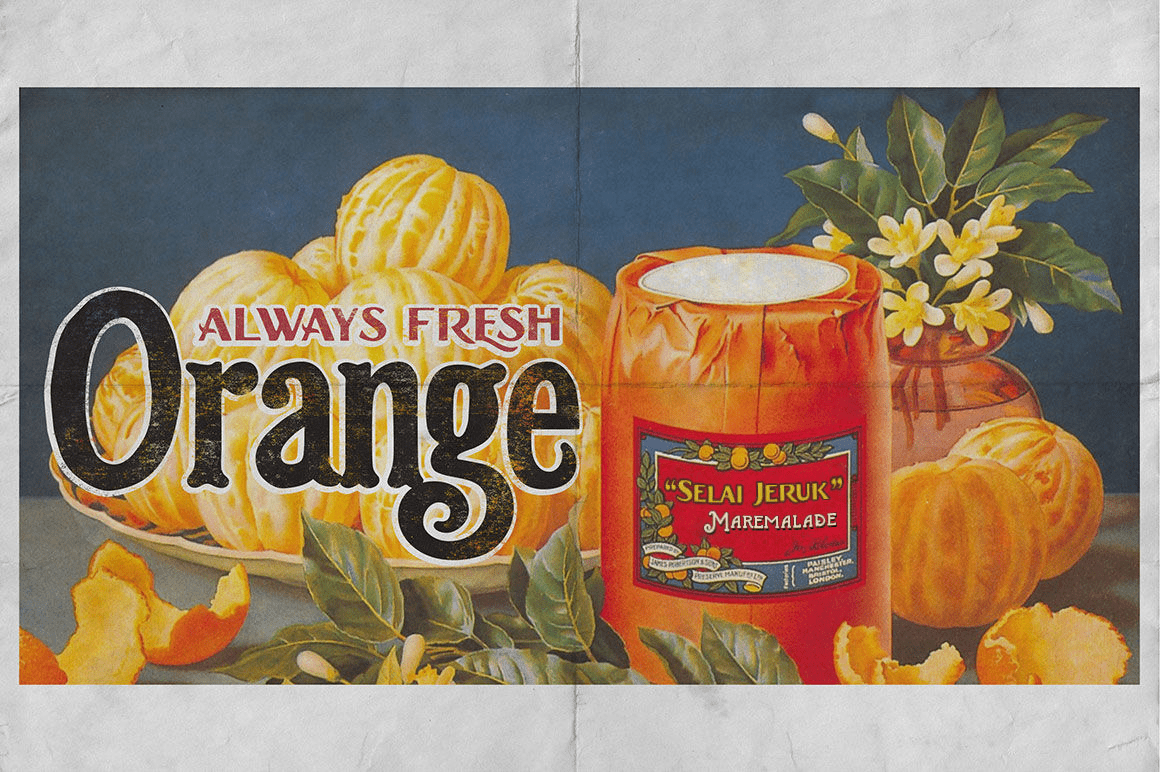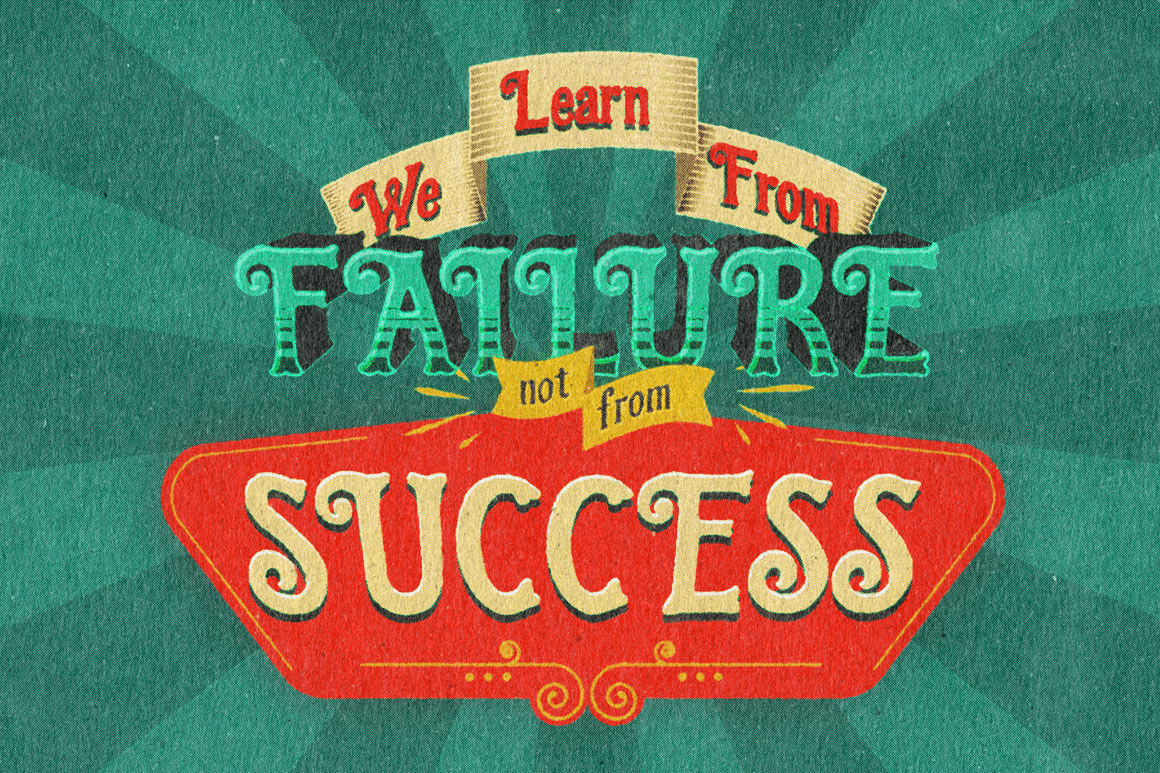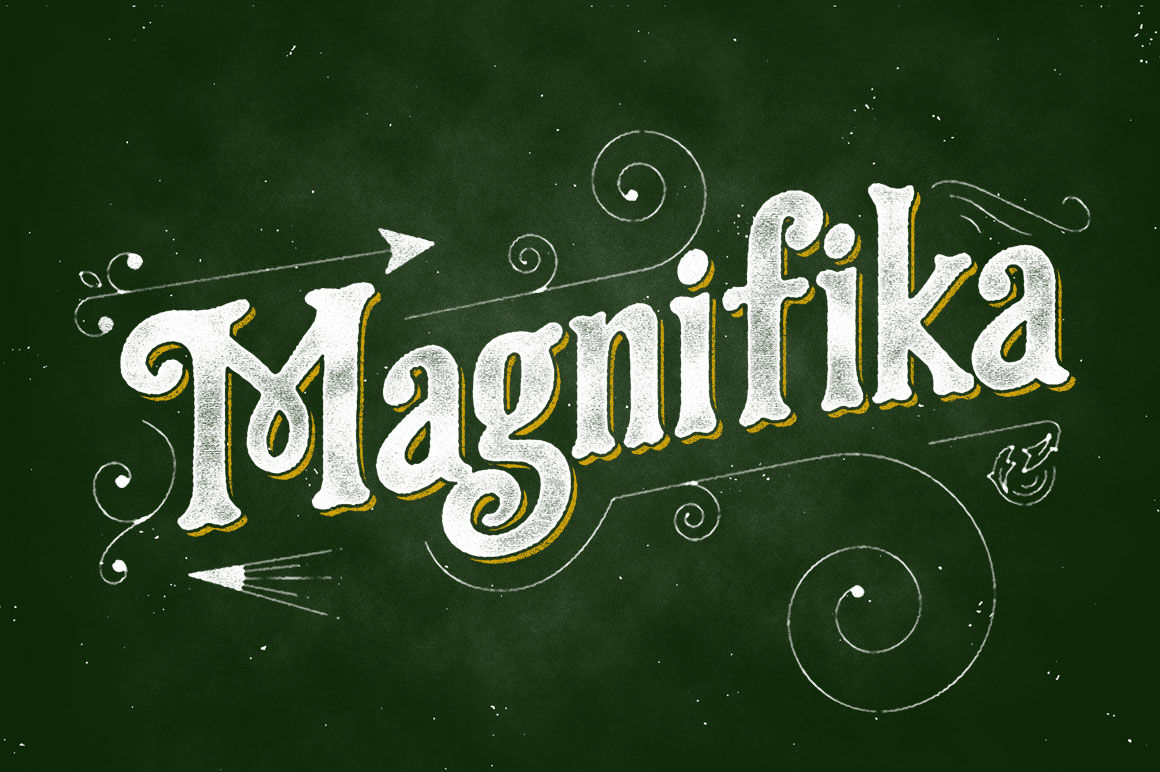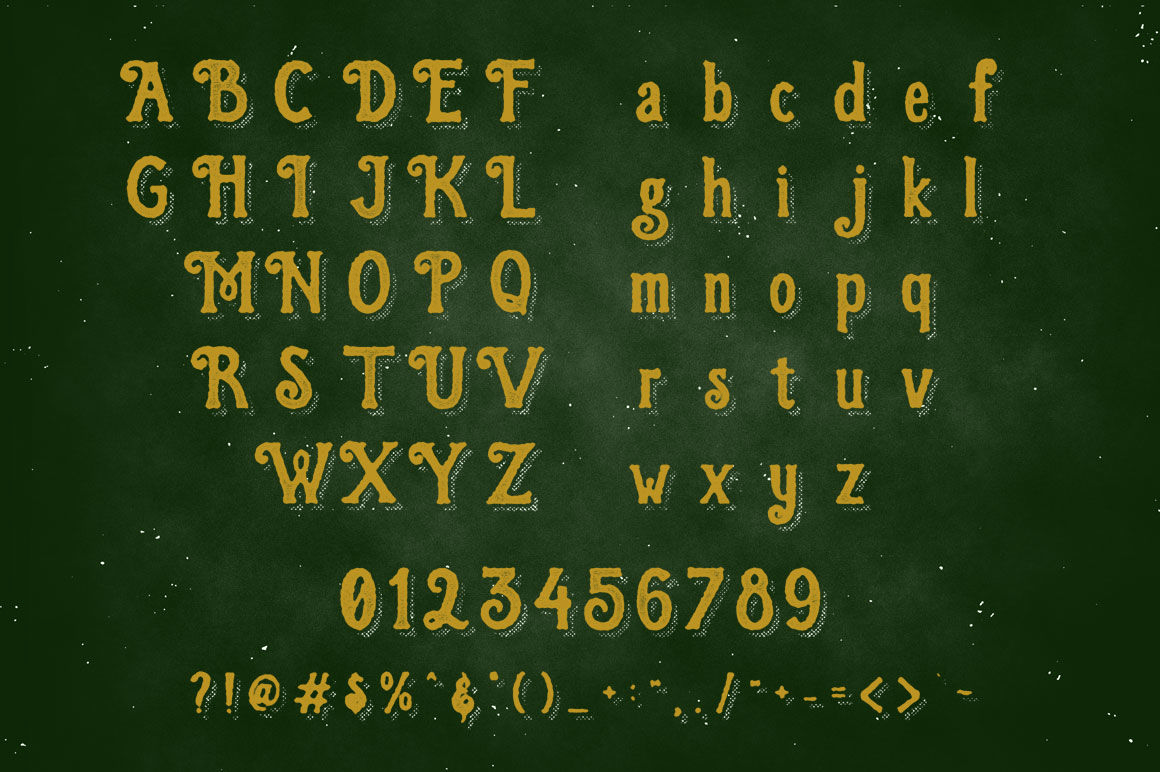
Magnifika
About Magnifika
My third font family – It\’s called Magnifika ! Magnifika was inspired by vintage Victorian lettering and includes lowercase. Designed especially for display purposes, but also works for text blocks. Ideal for posters, headlines, and logos that require…